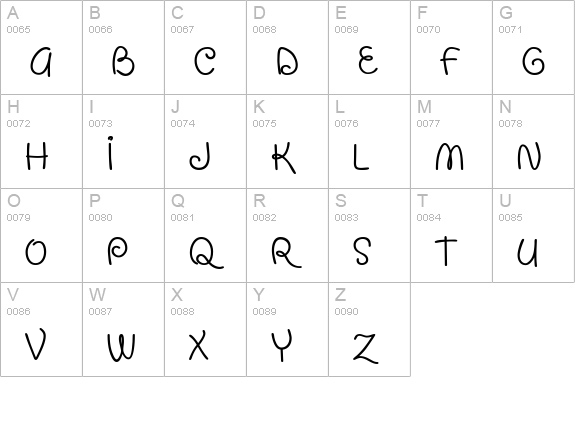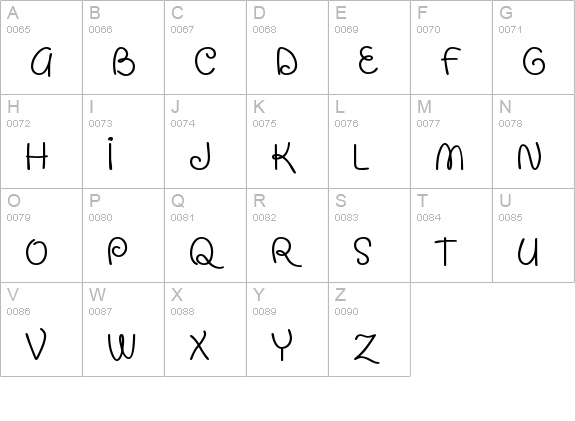
Morning Limerick BTN Cond is a distinctive, condensed-width variant in the Morning typeface family \xE2\x80\x94 well suited to design and typography projects.
Morning Limerick BTN Cond font is a charming and playful typeface that exudes a sense of whimsy and creativity. With its condensed style, it is perfect for adding a touch of elegance and sophistication to any design project. The font features clean lines and a modern aesthetic that make it versatile and easy to read. This delightful font is not only visually appealing but also free to download at FontsMarket.com. Whether you're designing a poster, invitation, or logo, Morning Limerick BTN Cond font will add a unique and eye-catching element to your work. Don't miss out on the opportunity to enhance your designs with this beautiful and freely available font.